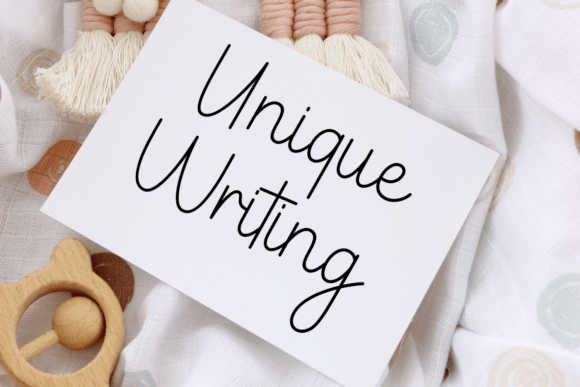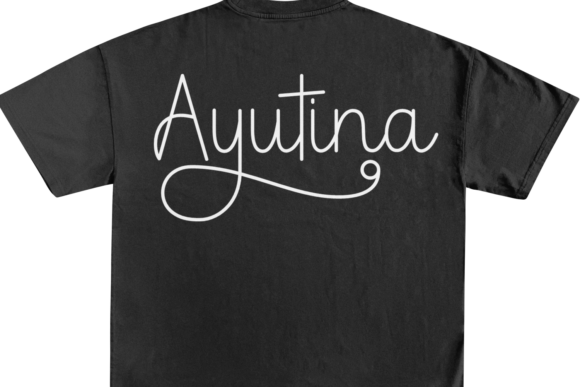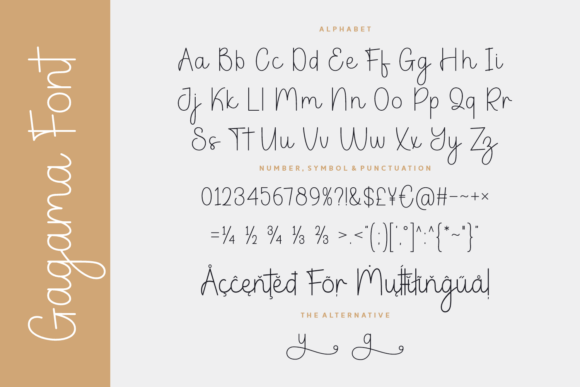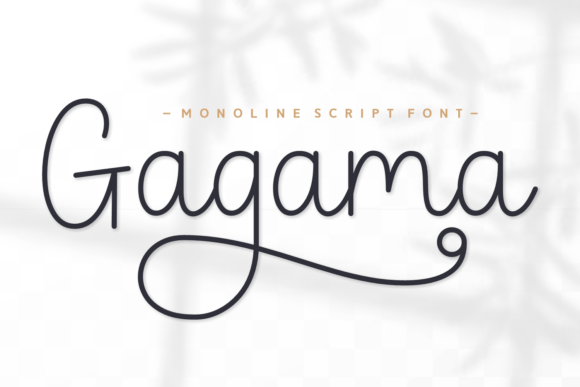
Introducing Gagama Font: Elevate Your Design with Sleek Monoline Script
In the world of typography, fonts play a crucial role in conveying the message and aesthetic of a brand or design. For designers and crafters looking for a modern and stylish script font, Gagama Font is an excellent choice. This monoline script font boasts a sleek, contemporary look that is perfect for creating logos, labels, and modern stationery.
What is Gagama Font?
Gagama Font is a monoline script font characterized by its fluid curves and consistent weight. This unique combination offers a balanced blend of style and readability, making it an ideal choice for various design applications. The font’s sleek and modern aesthetic is sure to elevate your designs and give them a professional touch.
Key Features of Gagama Font
• Monoline Script: Gagama Font features a monoline script style, which means that the font has a single line width throughout. This creates a clean and sleek look that is perfect for modern designs.
• Fluid Curves: The font’s fluid curves add a touch of elegance and sophistication to your designs. The smooth curves also improve readability, making it easier for your audience to read and understand your message.
• Consistent Weight: The consistent weight of Gagama Font ensures that your text looks balanced and harmonious. This is particularly important for logos and branding, where consistency is key.
• High Readability: Despite its sleek and modern look, Gagama Font remains highly readable. This makes it perfect for use in body text, headings, and titles.
Use Cases for Gagama Font
Gagama Font is a versatile font that can be used in various design applications. Here are some of the most popular use cases:
• Logos and Branding: The font’s sleek and modern look makes it perfect for creating logos and branding materials. Use Gagama Font to create a professional and stylish logo that represents your brand.
• Labels and Packaging: Gagama Font is also great for creating labels and packaging designs. The font’s high readability and clean look make it easy to read and understand.
• Modern Stationery: Add a touch of elegance to your stationery with Gagama Font. The font’s fluid curves and consistent weight create a beautiful and sophisticated look that is perfect for modern stationery.
• Digital Designs: Gagama Font can also be used in digital designs, such as website headers, social media graphics, and more.
Tips for Using Gagama Font
Here are some tips for using Gagama Font in your designs:
• Pair with Other Fonts: Gagama Font pairs well with other fonts, especially sans-serif fonts. Experiment with different font combinations to create a unique look.
• Adjust Font Size: Adjust the font size to suit your design needs. Gagama Font looks great in large and small sizes.
• Use in Headings and Titles: Use Gagama Font in headings and titles to add a touch of elegance and sophistication to your designs.
Gagama Font is a beautiful and versatile monoline script font that is perfect for designers and crafters looking for a modern and stylish font. Its fluid curves and consistent weight offer a balanced blend of style and readability, making it ideal for various design applications. With its sleek and contemporary look, Gagama Font is sure to elevate your designs and give them a professional touch.